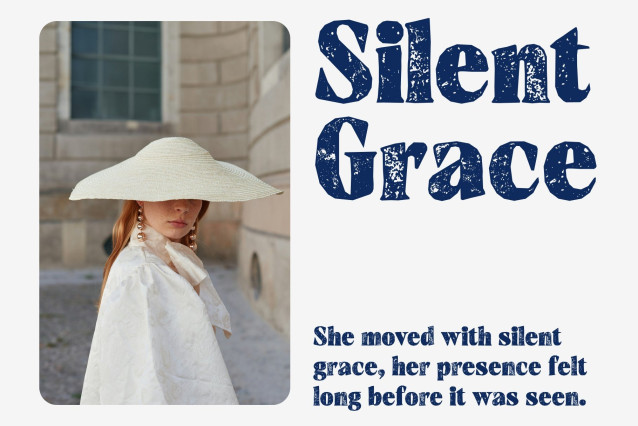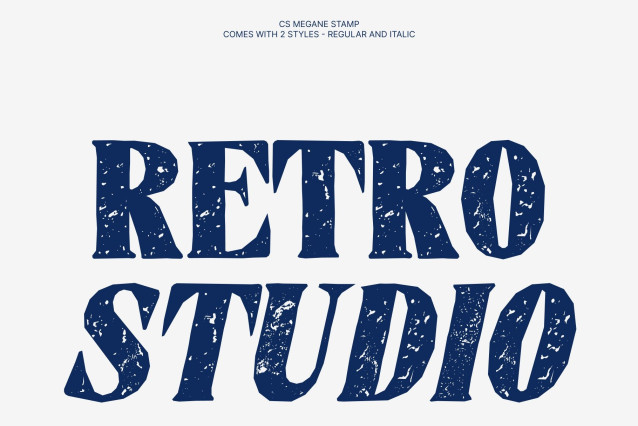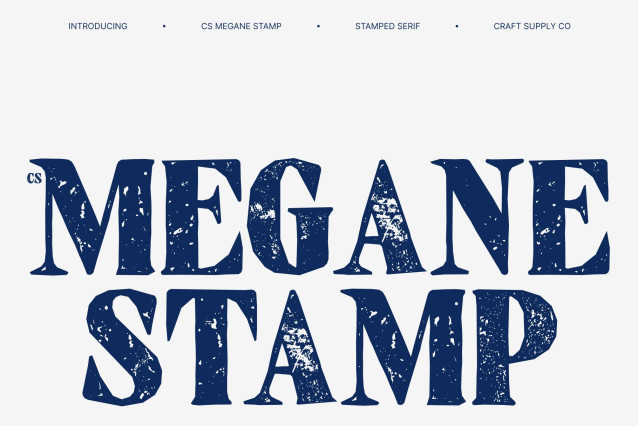
CS Megane Stamp – Bold Classic Serif with Vintage Authority
Luxurious Serif with a Powerful Presence
This is a bold serif font that blends timeless elegance with modern strength. Inspired by classic luxury typography, its confident letterforms project sophistication and authority while remaining fresh and contemporary. The added stamp texture introduces a subtle vintage print character, giving the font a tactile and authentic finish.
High Contrast Forms with Sculpted Precision
Featuring striking contrast and sharply defined serifs, this font delivers a distinctive and refined look. Its bold structure ensures excellent readability while maintaining a dramatic, high-end aesthetic perfect for headlines and statement typography.